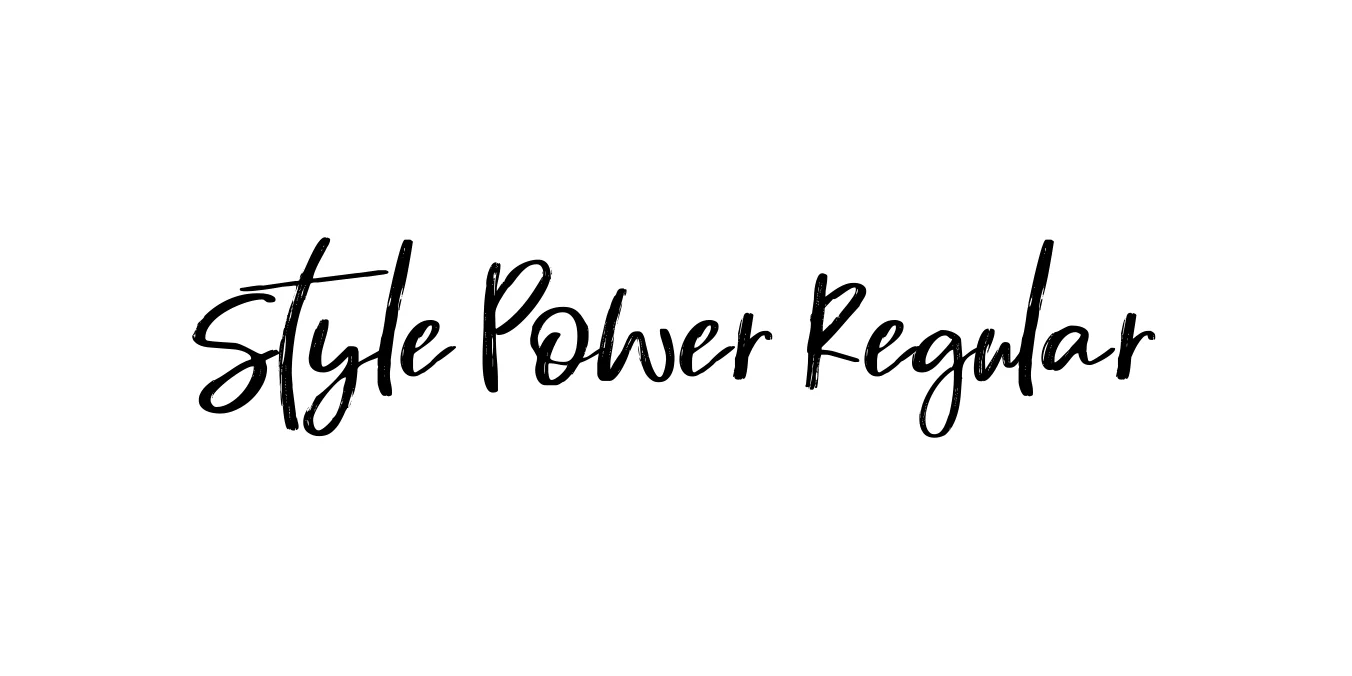
Style Power Regular
Designed by Typehill
Style Power Regular is a high-energy, dry brush script typeface designed to capture the raw aesthetic of hand-painted lettering. Characterized by its aggressive strokes and authentic textures, this font brings a sense of motion and urgency to any design. It is particularly well-suited for projects that demand a bold, urban, or athletic presence, where the detailed grit of the brushwork adds a layer of depth and realism.
Technical features of the font include a robust set of characters with natural-looking ligatures and swashes that prevent repetitive letterforms. Style Power Regular is optimized for display use, ensuring that its intricate details remain sharp even at larger scales. It serves as a versatile tool for designers looking to inject personality into modern branding, apparel design, and high-impact advertising campaigns.
Style Power Regular Best Uses
Perfect for team logos, jersey numbering, and athletic apparel branding.
Ideal for energetic Instagram headlines, YouTube thumbnails, and TikTok overlays.
Great for promotional posters, music festival flyers, and event banners.
Excellent for streetwear designs, stickers, and bold graphic t-shirts.